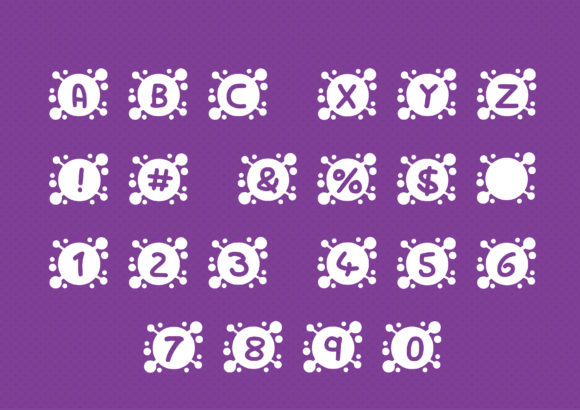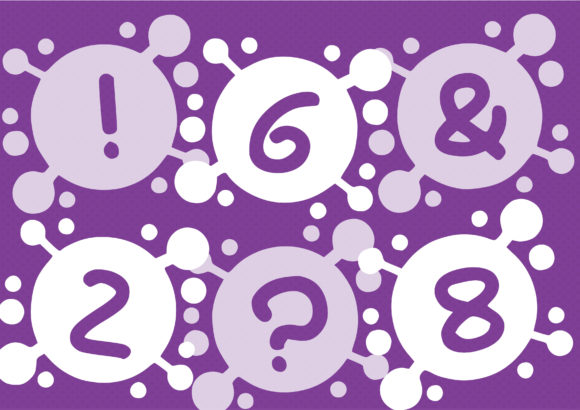
Introduction to Play Germ Font
As a designer, have you ever found yourself stuck in a creative rut, searching for the perfect font to bring your idea to life? Maybe you’ve been brainstorming a project for a medical client, or perhaps you’re working on an educational presentation that requires a touch of fun and whimsy. Whatever the case may be, you’re in luck because we’ve discovered a hidden gem that’s sure to spark your imagination – the Play Germ Font!
This delightful germ-shaped font is more than just a quirky design element – it’s a valuable resource for designers looking to add a unique touch to their projects. With its high-quality design and transparent background, the Play Germ Font is perfect for a wide range of creative endeavors, from medical-related projects to educational designs and school presentations. And the best part? It’s available for free download, making it an instant addition to your design arsenal.
Key Features of Play Germ Font
- Transparent background for easy integration into designs
- Unique, playful design perfect for adding a fun touch to your work
- Available in a range of sizes, including 200, 300, and 400 point sizes
- Resolution-independent design for use in both print and digital projects
- Easy to customize and modify to suit your specific design needs
Honest Review: Play Germ Font
I recently stumbled upon the Play Germ Font while searching for a design resource to add some personality to a creative project. I was immediately drawn to its unique and quirky style, which I thought would be perfect for a modern design.
Here are some of the things that worked well for me: ✨
- High-quality glyphs that are crisp and clear
- A wide range of characters, including punctuation and numbers
- Transparent background, making it easy to place over images
However, I did encounter a few limitations: ⚠️
- Limited language support, which may be a problem for designers working on international projects
- No bold or italic variations, which can limit its use in certain contexts
Overall, I was impressed with the Play Germ Font and think it’s a great addition to any designer’s toolkit. While it may have some limitations, its unique style and high-quality glyphs make it a valuable resource for any creative project.
Play Germ Font
Design Resource Guide
Play Germ Font is a unique and creative design resource that can add a personal touch to your projects. This high-quality font features a transparent background, making it perfect for overlaying on images or using as a standalone element.
Getting the Most Out of Play Germ Font
Here are a few tips for getting the most out of Play Germ Font:
– Use the font in combination with other design elements, such as images and graphics, to create a unique and eye-catching visual effect.
– Experiment with different font sizes and styles to create a dynamic and engaging design.
– Use the font to create custom graphics and overlays for social media and other online platforms.
Common Use Cases for Play Germ Font
Play Germ Font is perfect for a variety of creative projects, including:
– Social media graphics and overlays
– Blog post headers and footers
– Business card designs
– Infographic elements